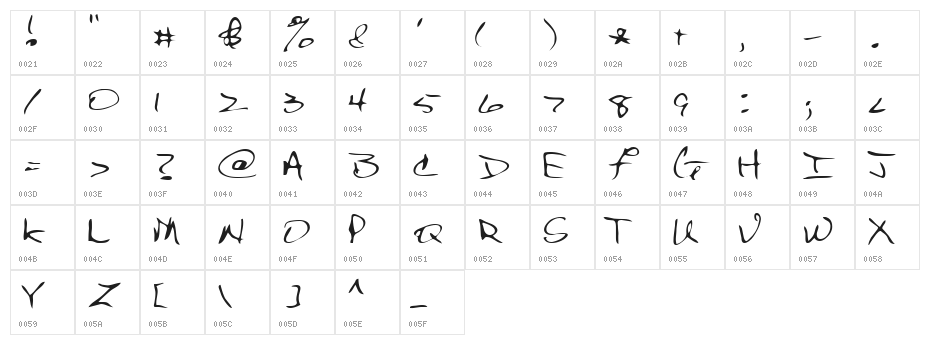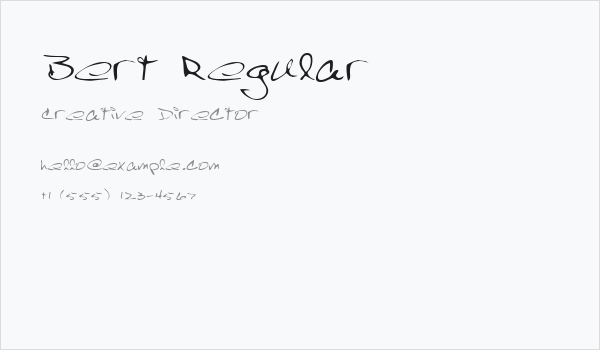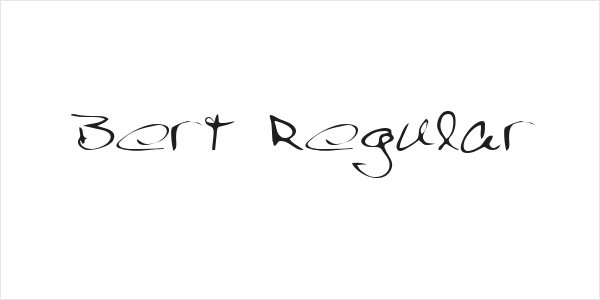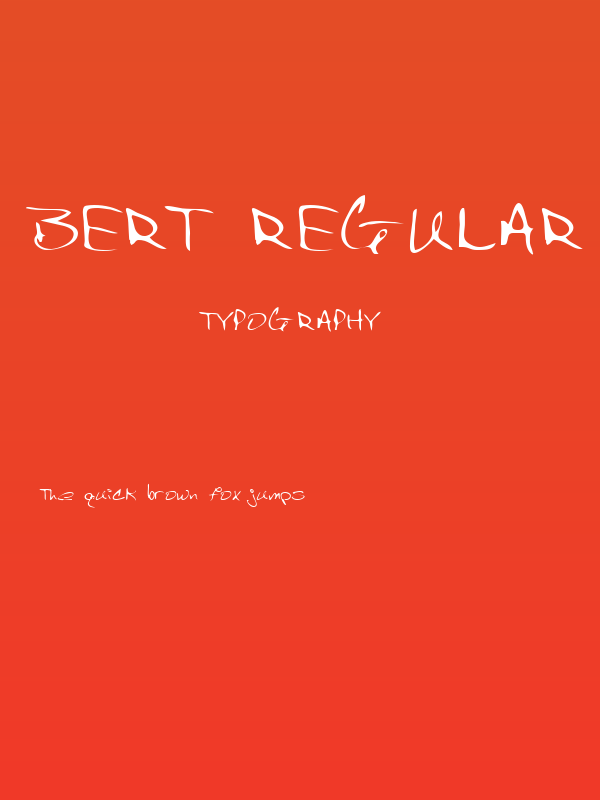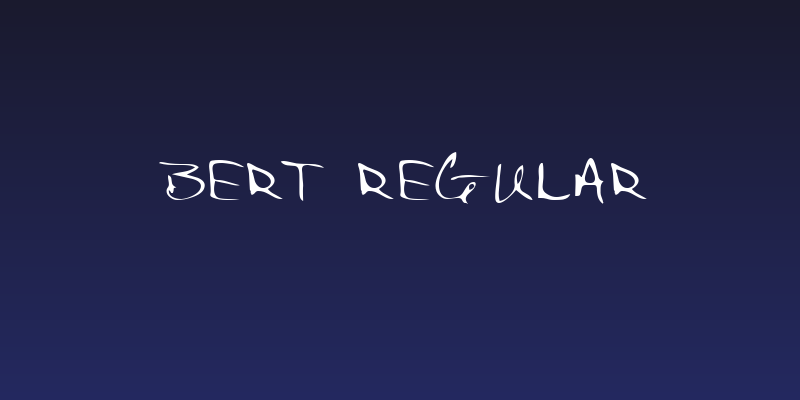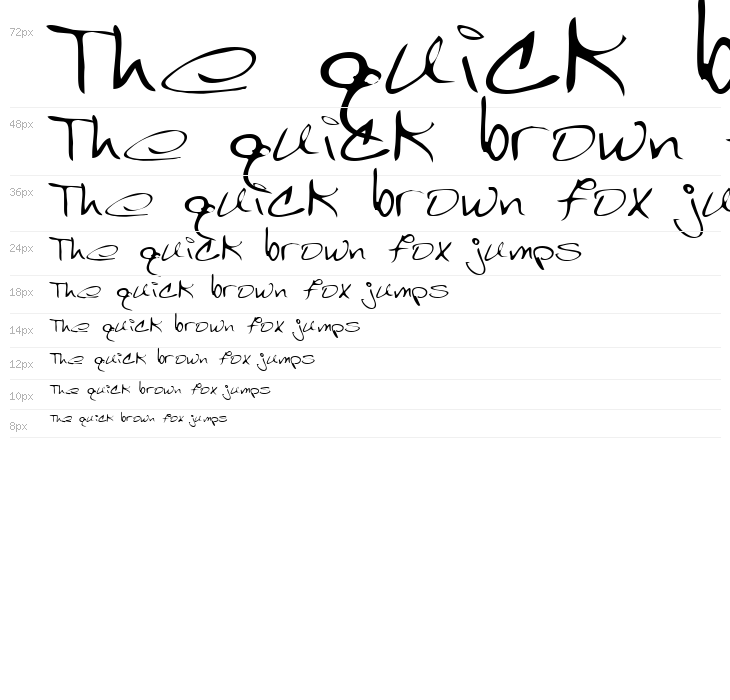
Bert Regular Font
Bert Regular Description
This font features a dynamic and expressive style, characterized by its fluid, handwritten appearance. The letters are crafted with a sense of movement and spontaneity, giving it a lively and artistic feel. The strokes vary in thickness, providing a medium contrast that enhances its visual interest. The characters are slightly slanted, adding to the informal and casual aesthetic. This font is well-suited for creative projects that require a personal touch, such as invitations, greeting cards, or artistic branding. Its unique style makes it stand out, capturing attention with its playful and energetic vibe.
| Use Case | Logos, Headlines, Artistic projects |
| Proposed Projects | Ideal for invitations, greeting cards, artistic branding, and creative projects. |